A new Mincho typeface that is relevant for today – TP Mincho
Transform values, arrange environments, support culture, and be rooted in everyday life.
The shape of Type Project’s aspirations.
From the creation of a magazine-dedicated font for the design publication AXIS Magazine, to the production of FitFont with freely combinable weight and contrast options, to its offerings for the City Font Project and of a range of font experimentation tools, Type Project aims to continue with its original approach to development.
Type that responds to society’s changes
A new Mincho typeface that is relevant for today – TP Mincho
Type Project now has another “trunk” that stands side by side with AXIS Font. It is TP Mincho. “Once I’d made AXIS Font and it was doing well, more and more people started saying, ‘Don’t you have an AXIS Font Mincho typeface?’ If there’s a demand for something, you’ve just got to make it, right? But I know that it takes me five years to produce a font on my own. To keep up that motivation for a five-year period, I’ve got to come up with aspects that have never been seen before, or I won’t be able to go on. So, I felt that I had to have concrete tasks and goals right in front of me. Otherwise, it would just be too unclear, and I wouldn’t be able to carry on like that for five years.”
When you began developing TP Mincho in 2009, what sort of tasks or issues were you facing? “One thing was that no horizontal layout-specialized Mincho typefaces had come out yet. And another issue was that the trend in font usage at that time was increasingly to go onscreen, so already there were fewer Mincho typefaces available.” To Suzuki, the situation had already worsened to the point that it seemed too late to correct it. “We’d just taken it for granted that Mincho typefaces always played a central role. But when cellphones and smartphones started coming out, before you knew it, sans-serif typefaces were mainstream, even in Europe and America. I knew that it might be too late, but because Mincho typefaces have certain emotional aspects and a formalness and gravitas that only they can convey, and I decided that there should be a Mincho typeface that was adapted for the new environment that is the screen.”
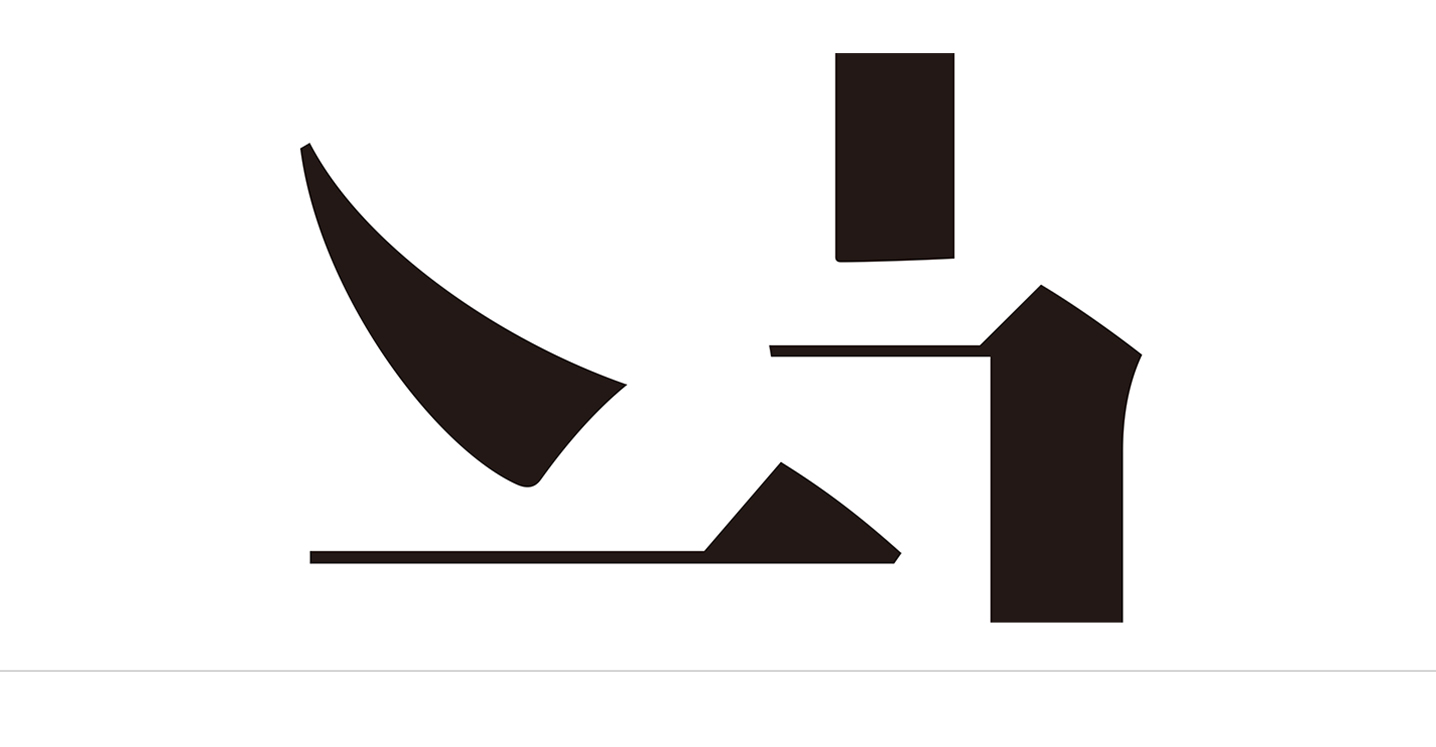
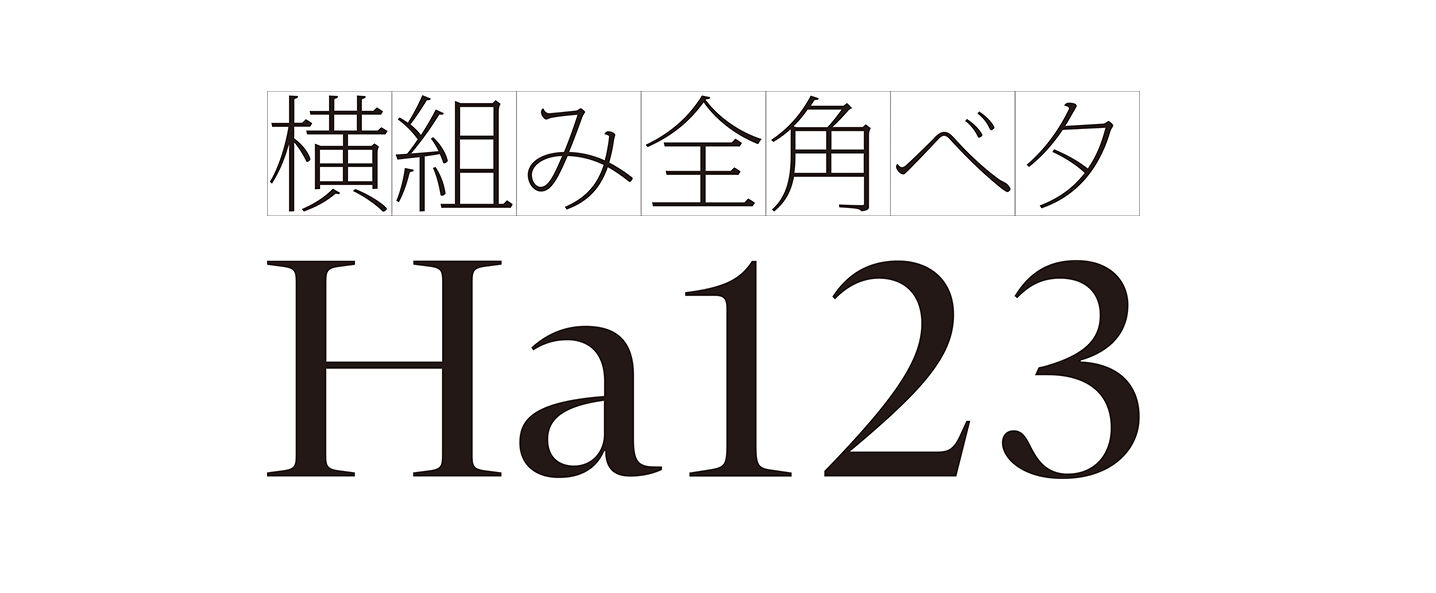
Introducing a new concept: Contrast
Suzuki explains that while TP Mincho was conceived in response to requests for ‘a Mincho typeface that fits AXIS Font’, throughout its development he was always concerned not only with how it would look in paper media, but also with how it would work as a Mincho typeface used on screens. “If you look at how Mincho typefaces have been used until now, they’ve always been treated as particularly suited to long text situations, and for both horizontal and vertical use. There have been all kinds of ways of thinking about this typeface, and images that people have of it and so on – for example, that the kana characters look prettier with slightly smaller character faces, or that they create more classical and emotional impressions. When it comes to onscreen situations, however, the pieces of text tend to be shorter, and the messages they are meant to convey get fragmented. I was aware that Mincho typefaces intended for vertical layouts could still look fairly nice when set horizontally. But when Mincho typefaces are seen onscreen, even if they look pretty in a small character size, they lack stability. That’s how it has always felt to me. And I’d say that this is why people unconsciously choose Gothic typefaces – because they have a sense of stability and good balance.”
When one tries to imbue Mincho’s state or appearance with ‘stable reading’, the typeface loses its emotional beauty. On the other hand, as Suzuki points out, when considering horizontal layouts for display use, the readability and the sense of stability will always be conditions that need to be addressed. “After that, the main thing is its flexibility when using onscreen. The proportions, adjusting it horizontally and vertically, and having it fit both big monitors and small monitors. You won’t get anywhere if you ignore the diversity of the environment. One might even say that users being able to change font characters at will means that the situation is one in which the maker’s control no longer has any effect. With paper media, the professional sets everything up in the best possible way, and a fixed product is provided by way of the process of printing; but onscreen, the user can have more freedom to choose how the characters will appear. In comparison to printing, in onscreen situations the maker is less able to limit the way the characters are used.”
TP Mincho, with its concept of allowing for variations by adding weights and changing horizontal stroke thicknesses, is Suzuki’s character-based approach to dealing with this situation. He made one variation, High Contrast, which has horizontal strokes that are narrower than the vertical strokes, like a conventional Mincho typeface, and two others that have less difference between the thicknesses of their vertical and horizontal strokes, Middle Contrast and Low Contrast, respectively. By enabling choice of contrast, as well as reproducibility and display resolution, Suzuki paved the way for optimal onscreen type expression.
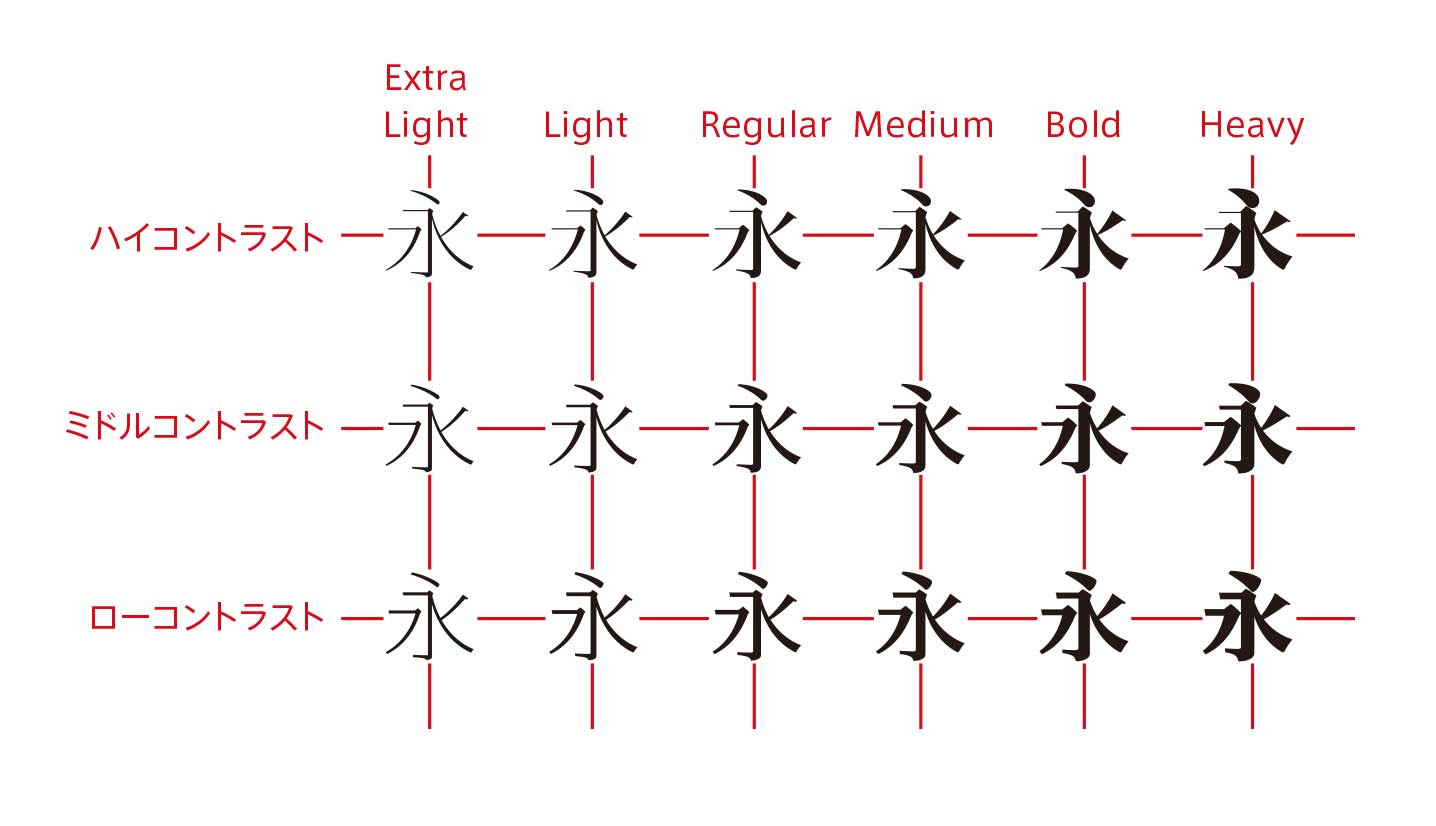
In contrast to AXIS Font, which is composed using the axes of weight-plus-width, TP Mincho evolves on the axes of weight-plus-contrast. Contrast refers to the difference in line thickness between the vertical strokes and the horizontal strokes; High Contrast has the wide vertical strokes and narrow horizontal strokes of a conventional Mincho typeface, while Low Contrast is provided with a thickness against the horizontal strokes, like the so-called yokobuto (heavy) Mincho. Equipped with both a Mincho typeface’s elegance and a Gothic typeface’s readability while retaining its original design concept, TP Mincho can respond to all manner of changes in environment by way of user selections made in accordance with the given purpose or situation.
TP Mincho
Another “trunk” of FitFont
The development of TP Mincho was launched with the three contrast variations of High Contrast, Middle Contrast and Low Contrast; now, with its development as a FitFont as well, even more requests can be fulfilled. In effect, TP Mincho has become another “trunk” of FitFont, that stands side by side with AXIS Font. “The Contrast variations make it possible to set contrast in tandem with resolution, and also allow for choices based on purpose or preference. TP Mincho and FitFont work together as one proposal for handling diverse onscreen environments.”
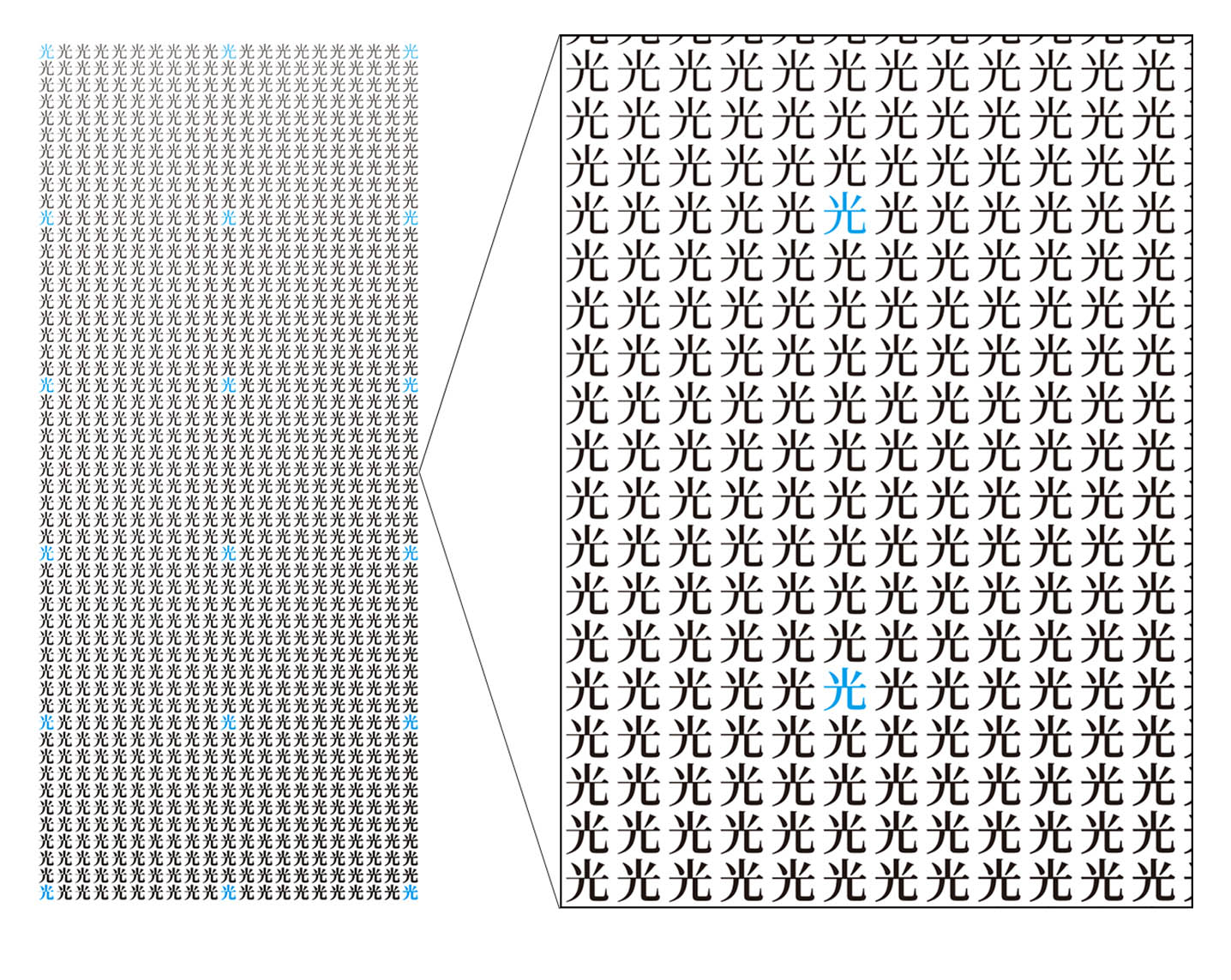
FitFont
The Driver’s Font experiment
This is another example of “a typeface intended for onscreen usage” – a font that Type Project has been working on since 2008 that is specialized for screens on car navigation systems and other onboard instruments. While driving, not only does one have to pay attention to the direction the vehicle is moving, and behind it as well, using the sideview and rearview mirrors, but also one has to keep an eye on the information displayed on the car navigation system. Driver’s Font, which was developed jointly with DENSO Corporation, is designed with the premise of providing necessary information instantaneously, allowing for high visual recognition even when it is not possible to focus on the screen. With its compact outlines and restrained finishing touches, it is truly the ultimate “at-a-glance” font. Here too, Type Project’s stance of using type to resolve the changes in our societies and environments is evident.
Driver’s Font is the result of a joint development project with DENSO Corporation. In search of the best possible text characters for onscreen use from the viewpoint of vehicle drivers, who cannot focus on only a single point while driving, a program of carrying out repeated hypotheses, trial production and testing was carried out over a three-year period. Driver’s Font’s compact outlines and subtle differences in intensity are clearly visible whenever they need to be, while in every other respect this typeface has become one that blends in with its background.